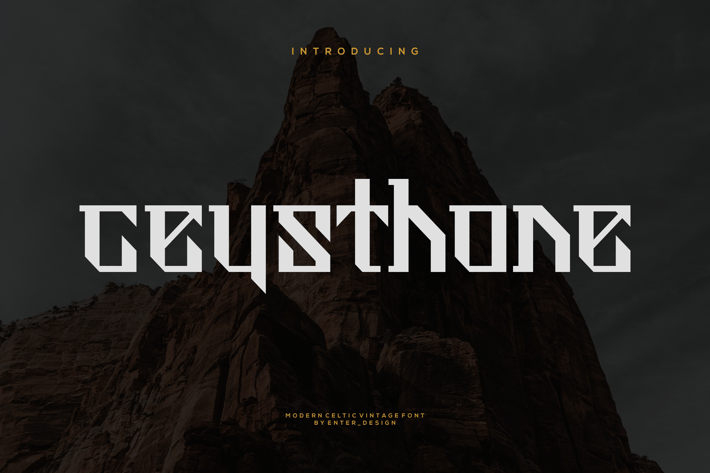
Ceysthone Font
Introducing our new product Ceysthone Font - Modern Font
Ceysthone Font - Modern Font is a bold and authentic display font. The font is suitable for any branding project like logo, esport, and many more. outstanding in a wide range of contexts.